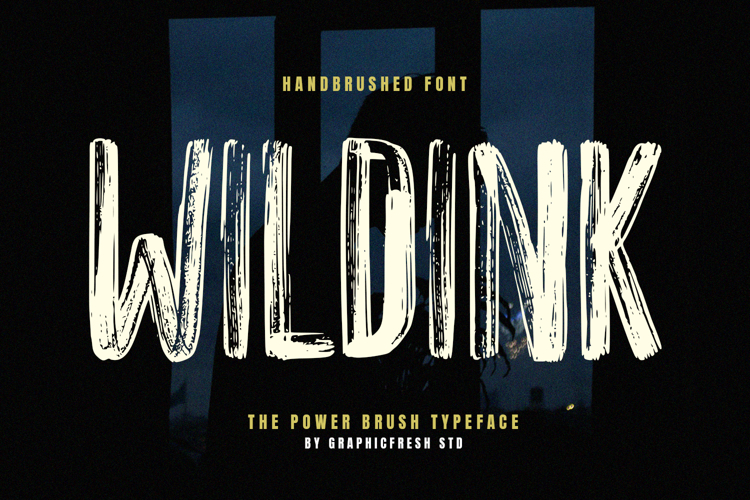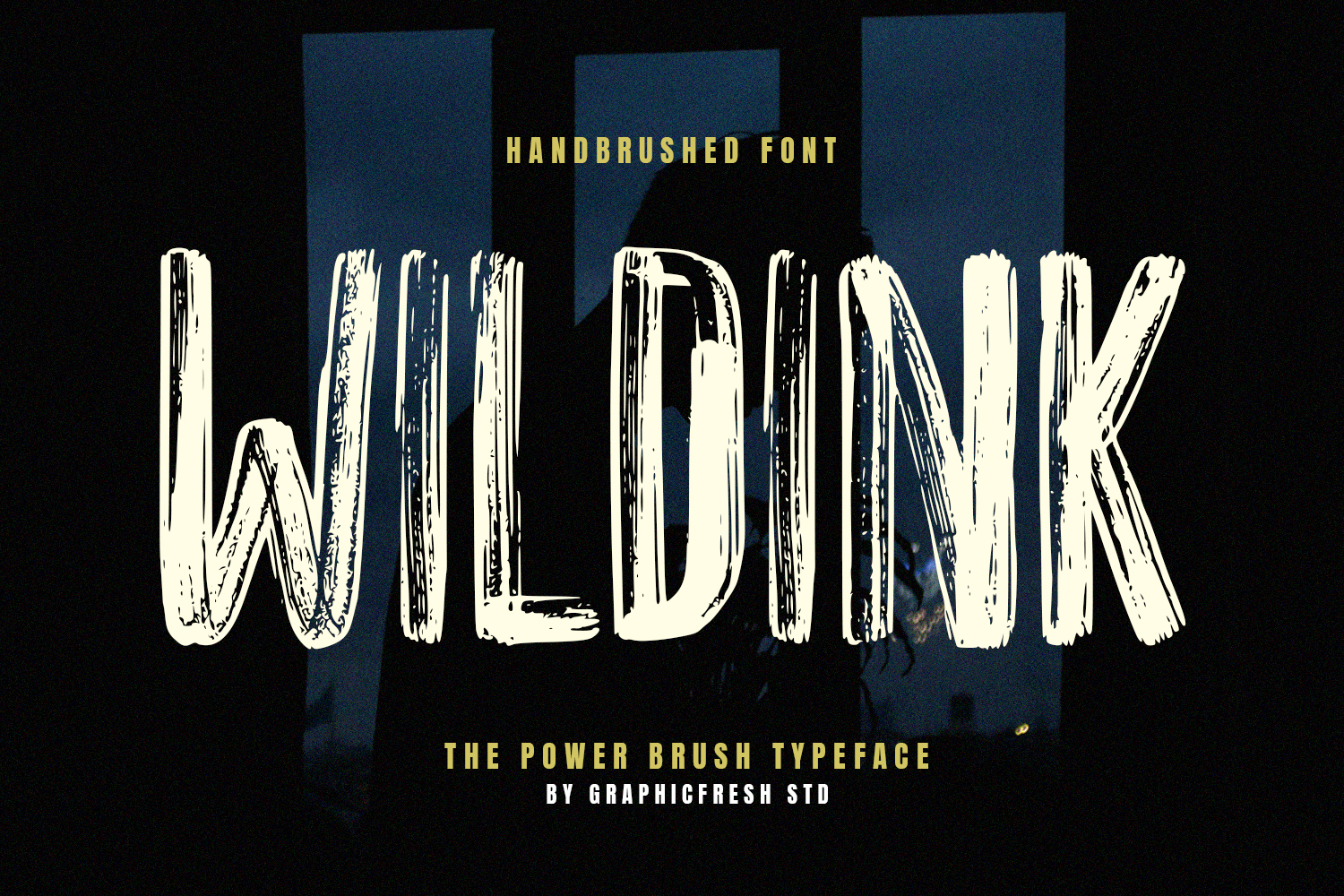
Wildink - The Power Brush Font
Wildink is a power-driven brush font designed to deliver bold impact and unstoppable energy. Built from strong hand-painted strokes with dynamic movement, this font captures intensity, confidence, and expressive force in every letter. Its textured brush style creates a striking visual presence while maintaining solid readability. Wildink is perfect for branding, headlines, posters, social media graphics, and creative projects that demand strength and bold character.